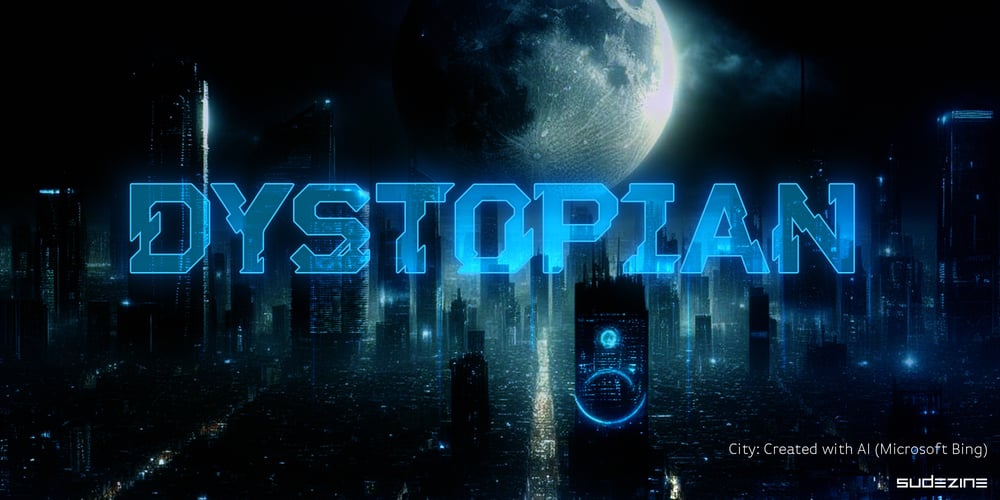
SDDystopian Font Family was designed by Suhee Hwang and published by Sudezine. SDDystopian contains 1 styles and family package options. SDDystopian is a Futuristic Dystopian Cyber Font, You can use Use logos, quotes, invitations, greeting cards, journals, posters, clothing, and more.